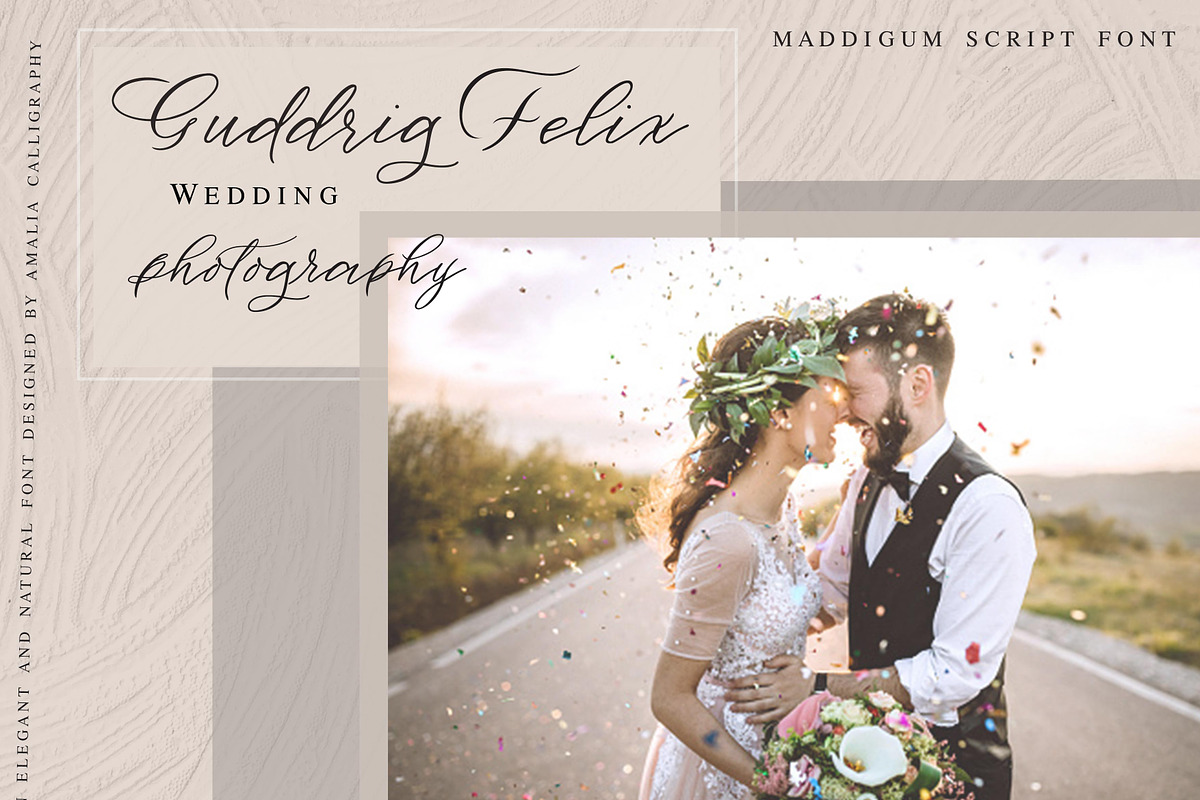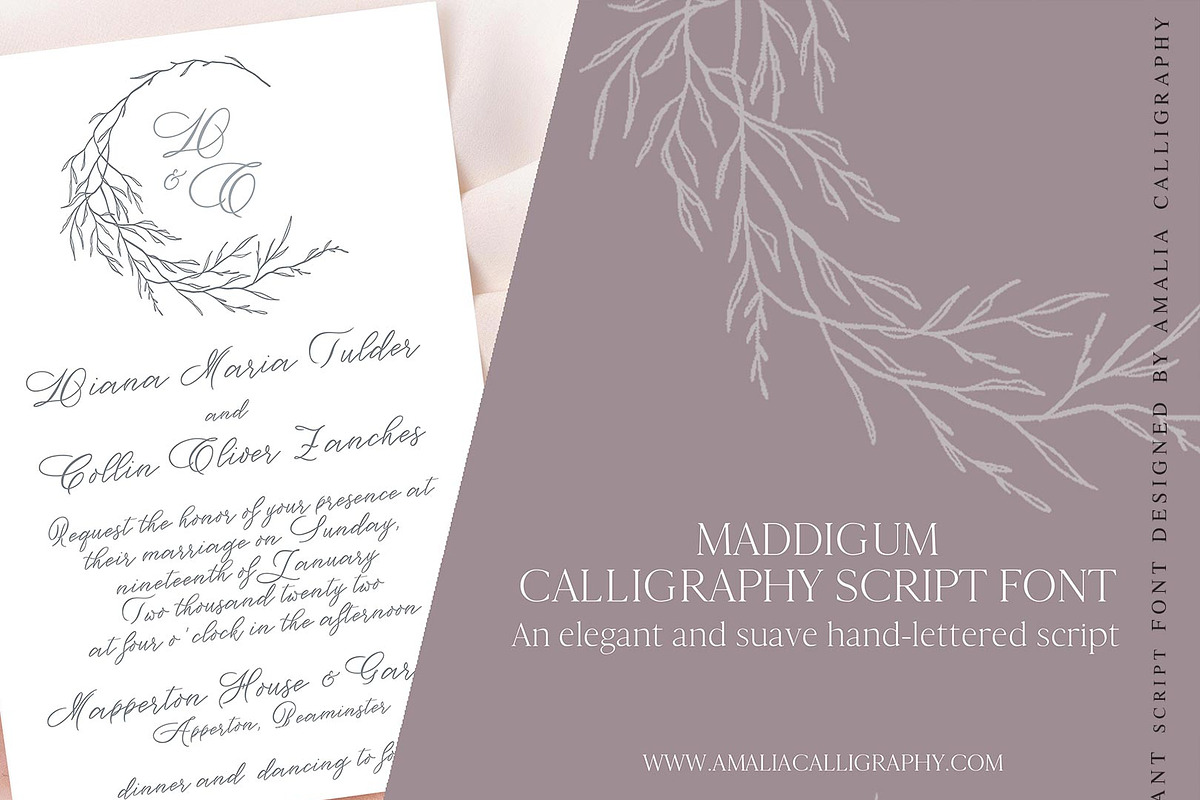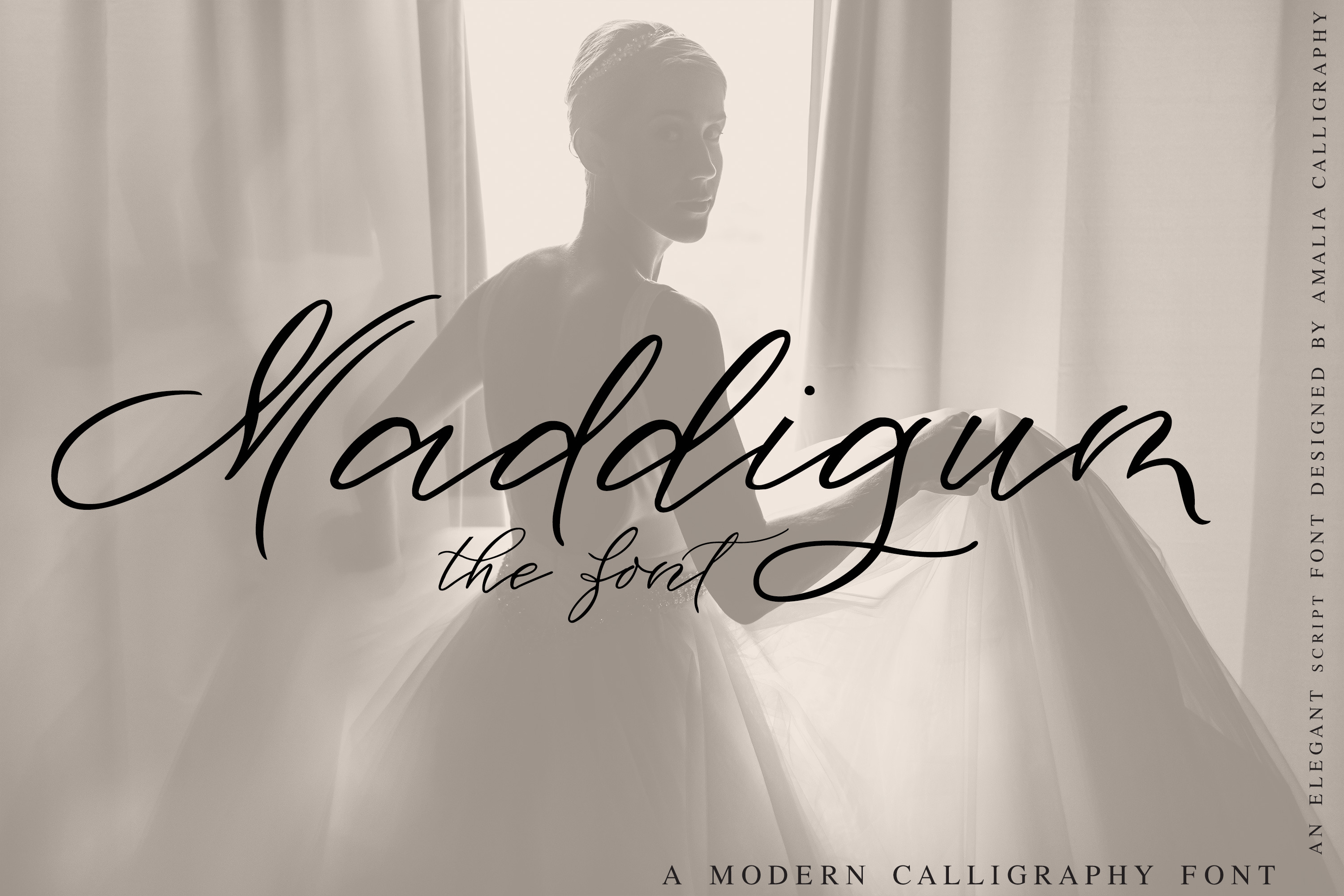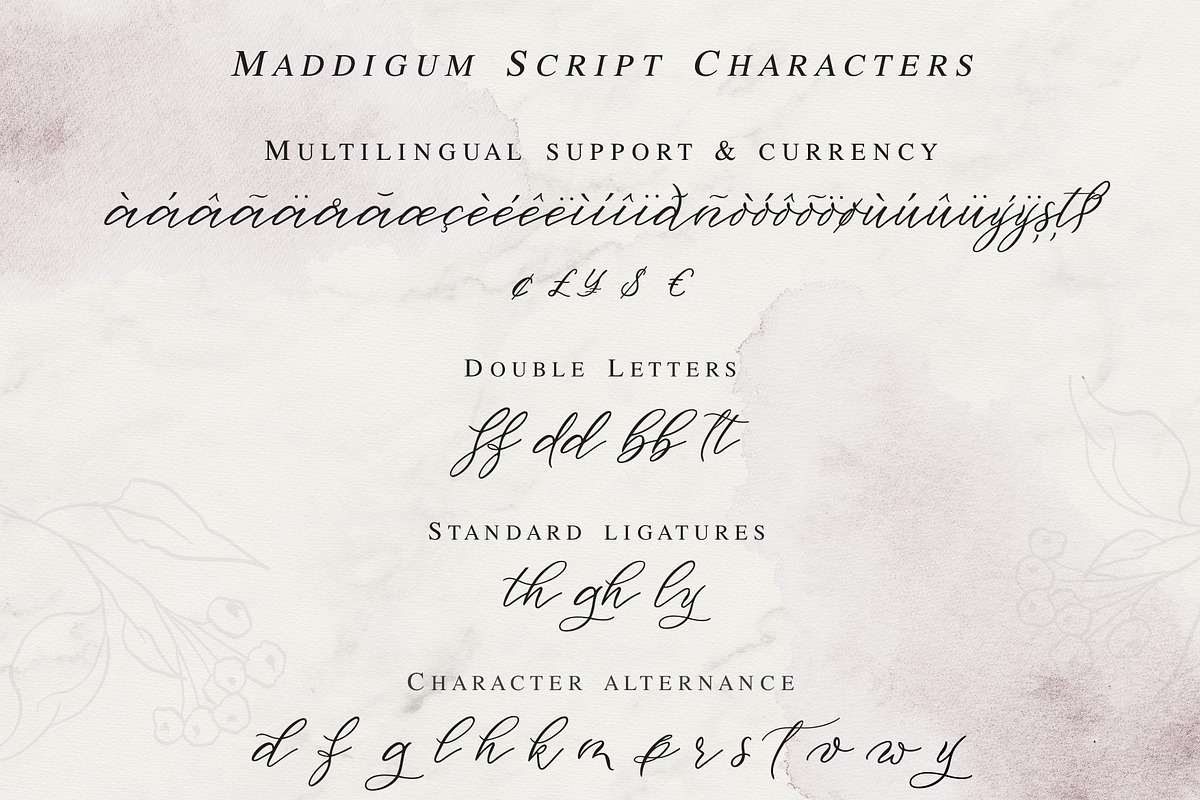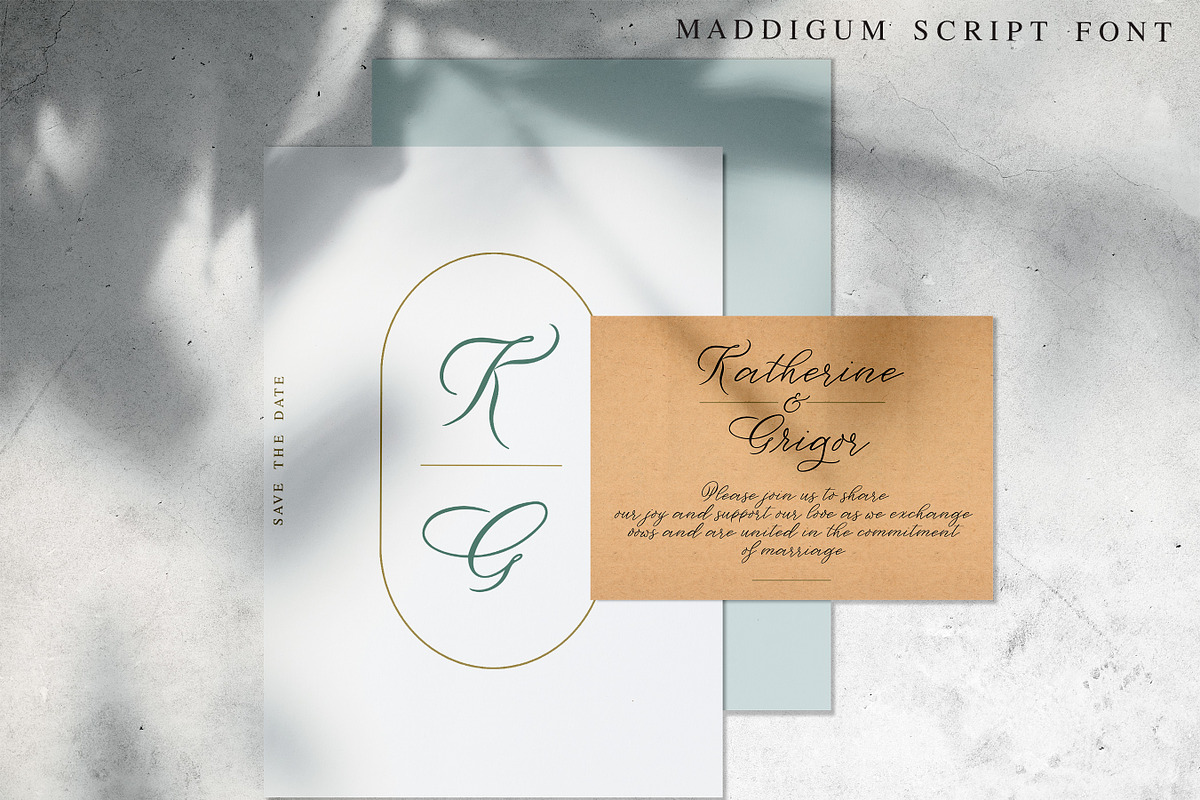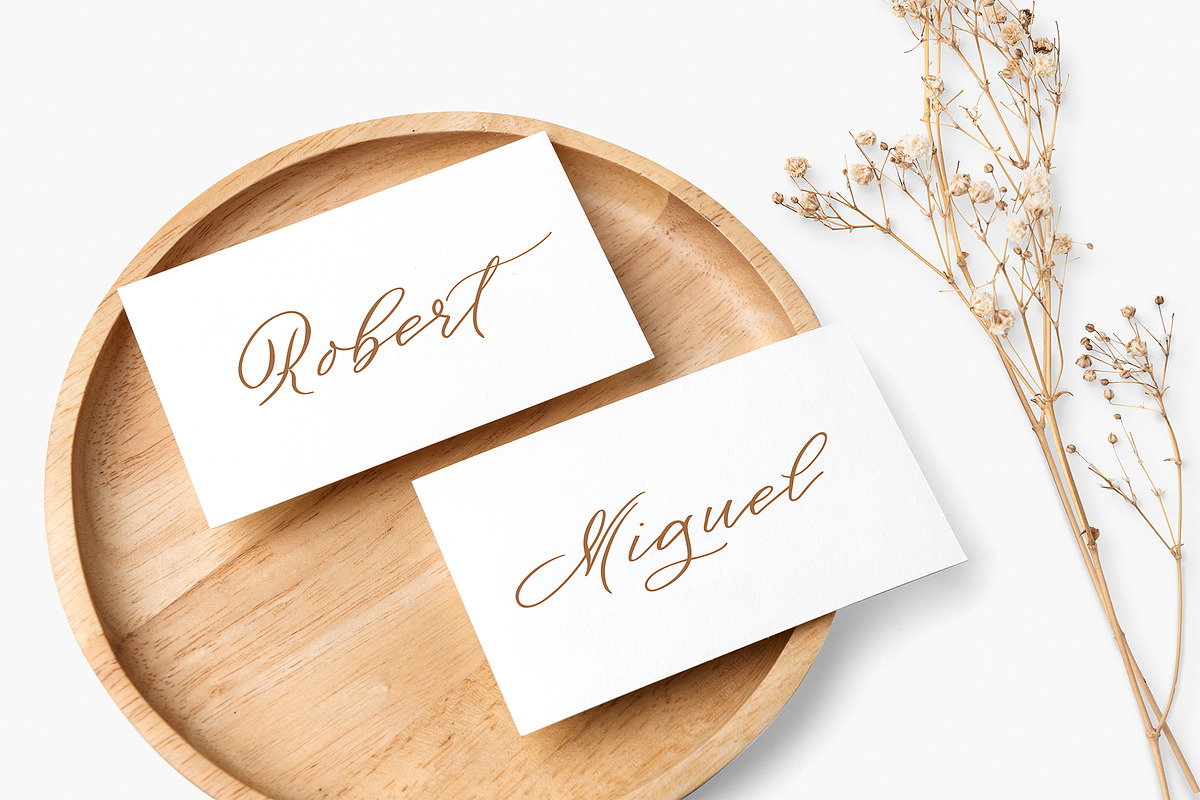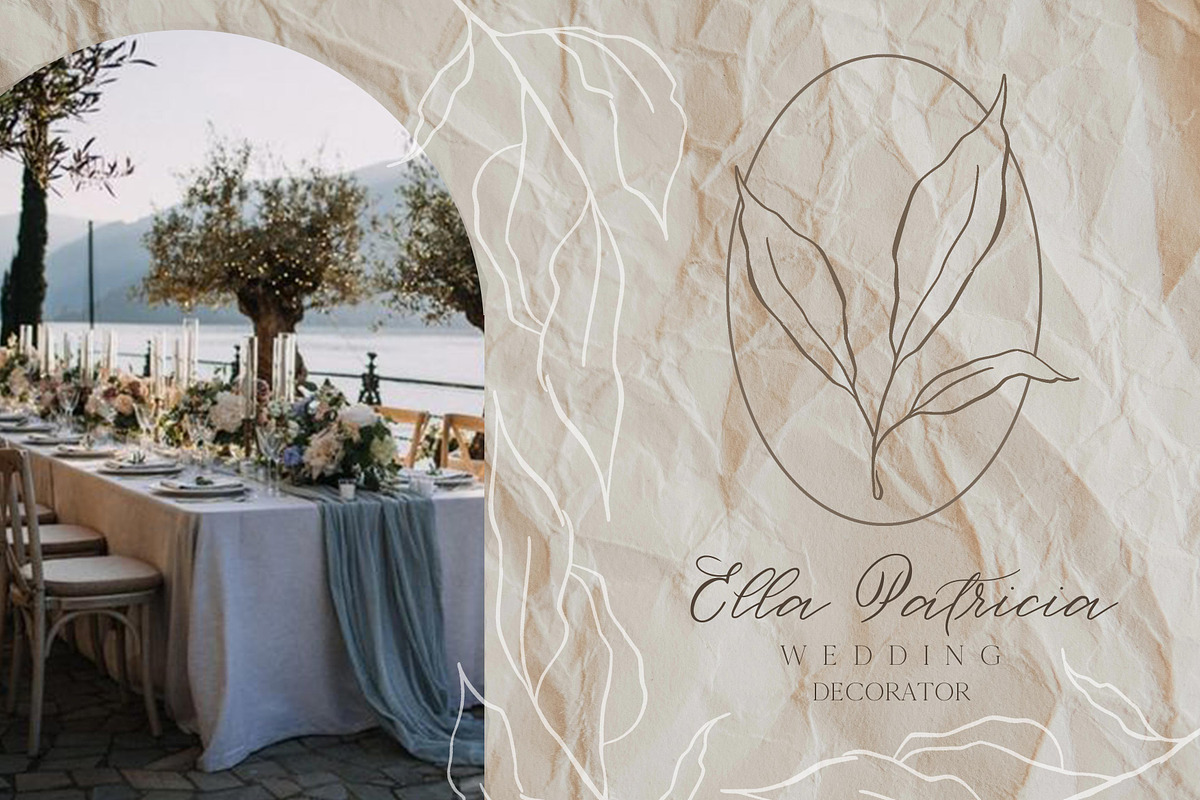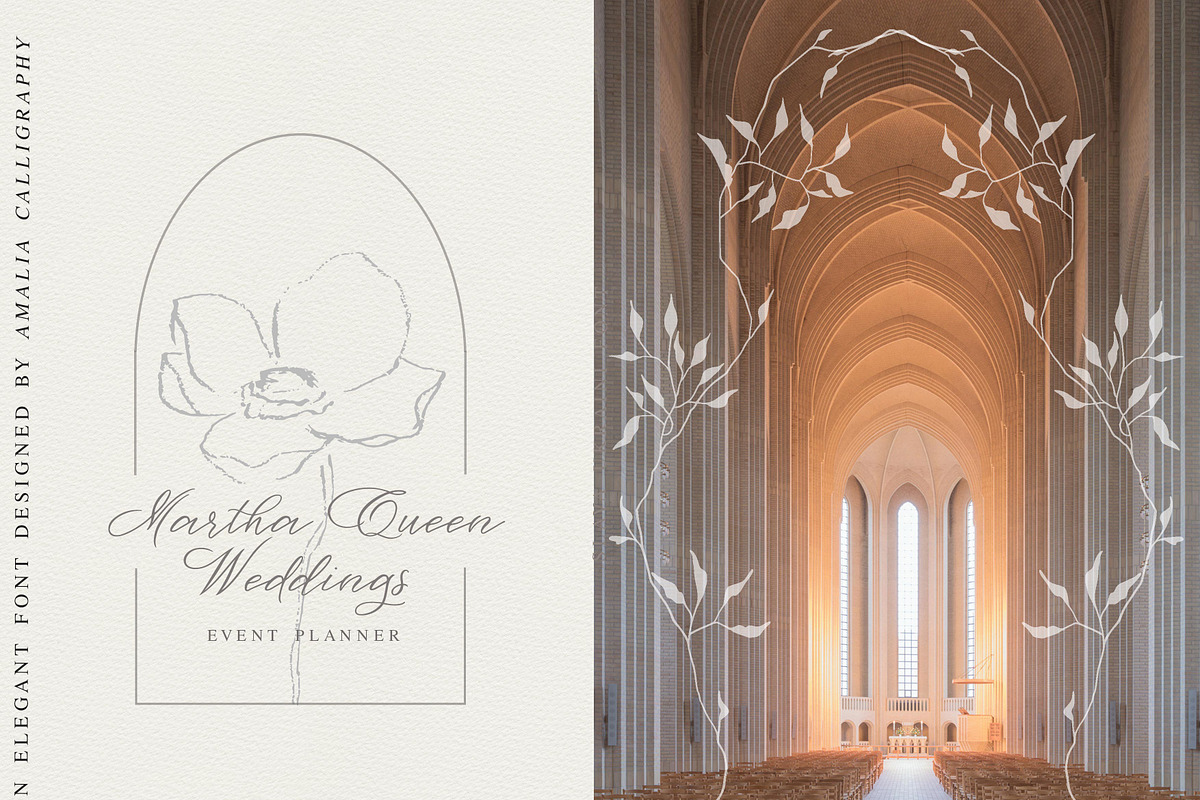
Maddigum | Calligraphy Script Font
Maddigum | Calligraphy Script Font - Elegant Script Font
Introducing our modern calligraphy font Maddigum - an elegant script font that evokes grace and charm.
This beautiful script is for those who are looking for an elegant, yet natural font, well suited for wedding stationery, branding, creative projects, artwork or social media. Maddigum is a graceful, full-featured script font with alternate characters and OpenType features. Hand-lettered with a slight right slant and faintly bounce, with suave swashes, all meant to evoke an unaffected, yet graceful look.
Maddigum Font includes full set of Uppercase and Lowercase Basic Characters, Numerals and Punctuation. Also, it contains ligatures and stylistic alternates to perfectly re-create natural calligraphy look. Font is available for Western European, Central European and Southeastern European Languages. PUA Encoded